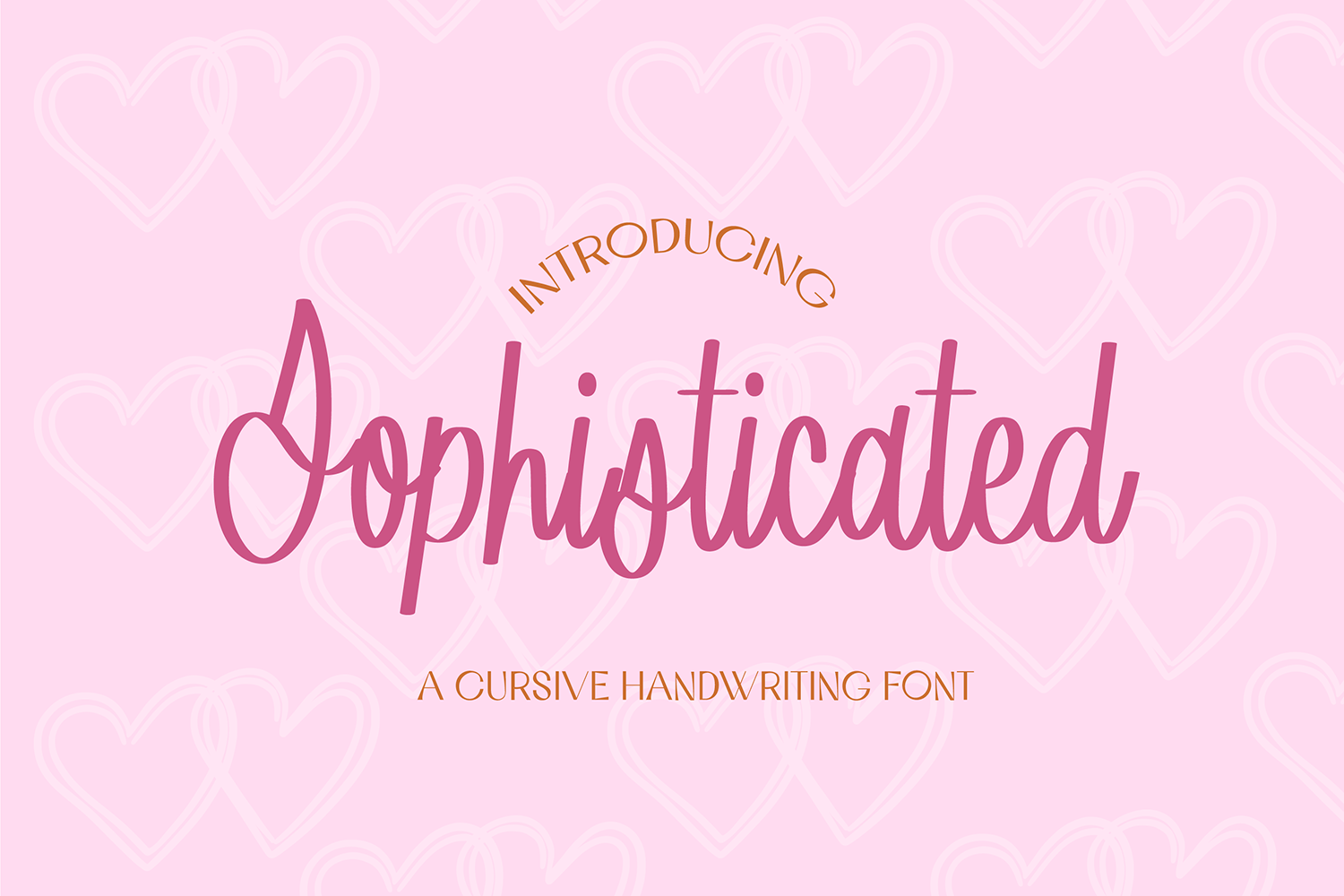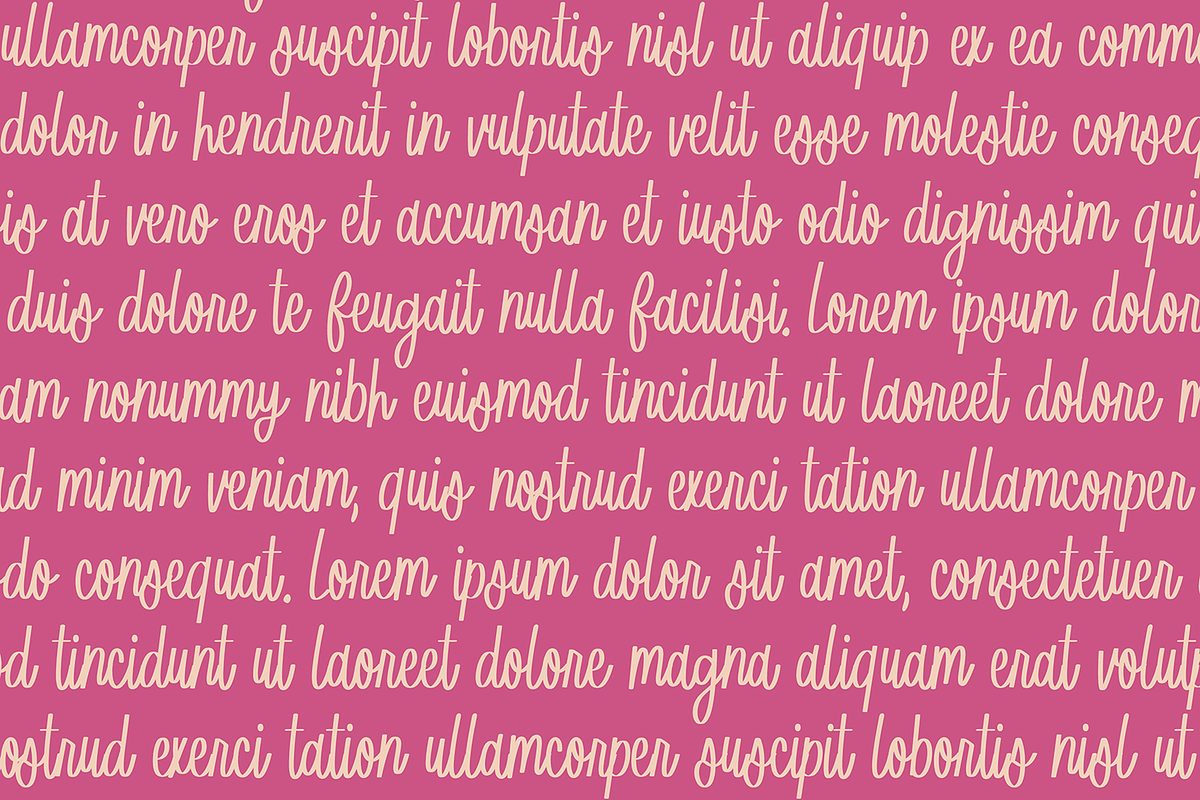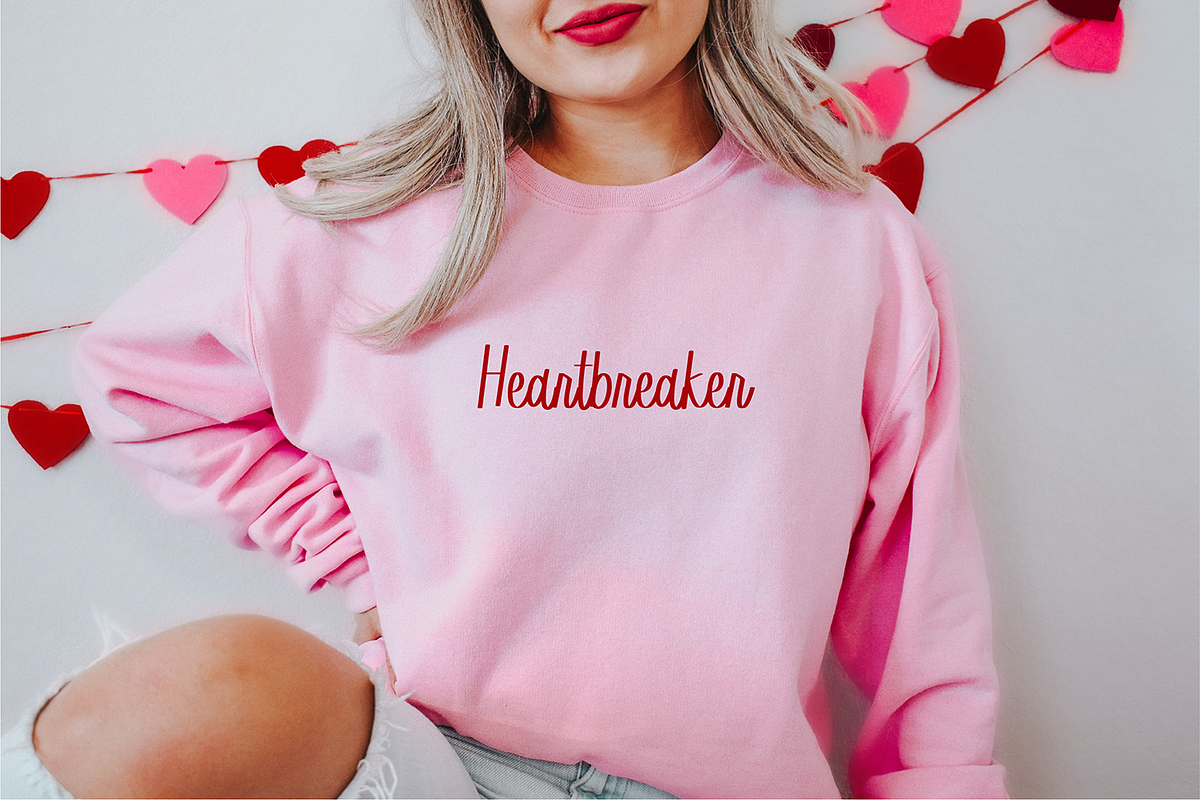
SOPHISTICATED Brush Cursive Font
"Sophisticated" Italic brush cursive font.
This font is an italic whimsical cursive font that is perfect for crafting, digital planning, or journaling projects. Includes intl characters.